Many designers struggle with visual identities that feel flat, generic, or lacking excitement. Whether you’re creating graphics for a game title, streaming channel, gaming merchandise, esports brand, YouTube thumbnail, or promotional campaign, typography often becomes the missing ingredient. This is where action game fonts can make a significant difference.
Action-themed typography is designed to communicate movement, adventure, intensity, and excitement. Instead of appearing static or corporate, these fonts inject energy into your design and instantly create a stronger emotional connection with your audience.
In this article, we’ll explore some of the best action game fonts that can help transform your visual identity, along with practical usage ideas, font pairing recommendations, and design inspiration.
Recommended Action Game Fonts
1. Zombox
Zombox features bold letterforms with a playful horror-action atmosphere. Its strong character shapes make it ideal for projects that require excitement while maintaining readability.
Perfect for zombie-themed games, adventure titles, Halloween promotions, and gaming content creators.
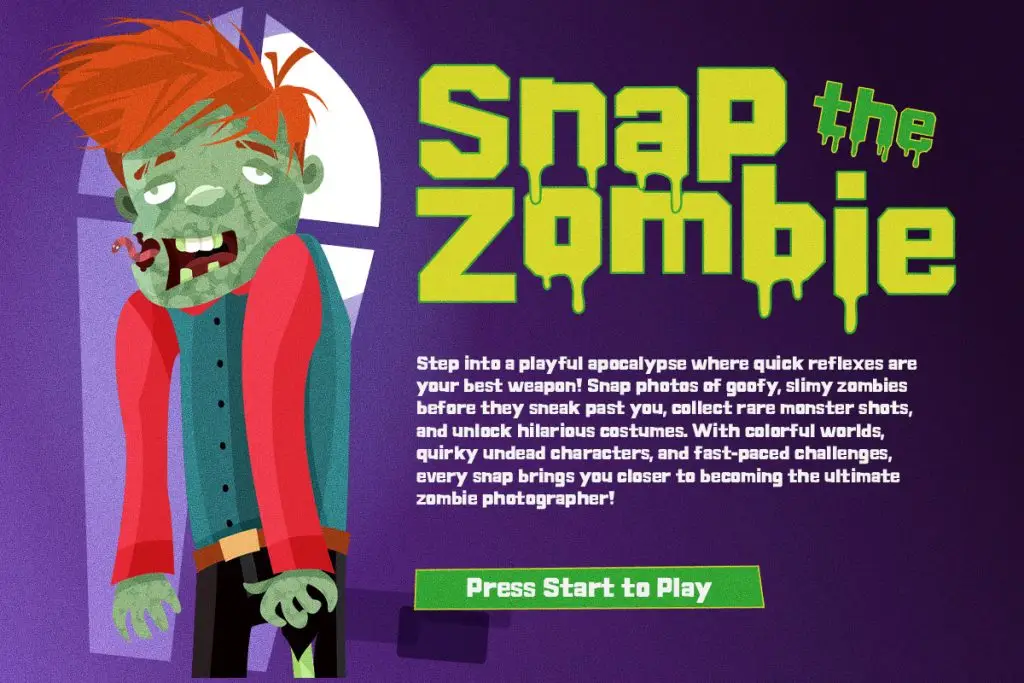
2. Ranventure
Ranventure combines adventure-inspired typography with energetic details that feel dynamic and immersive.
The font works particularly well for exploration games, fantasy adventures, RPG projects, and action-oriented branding.
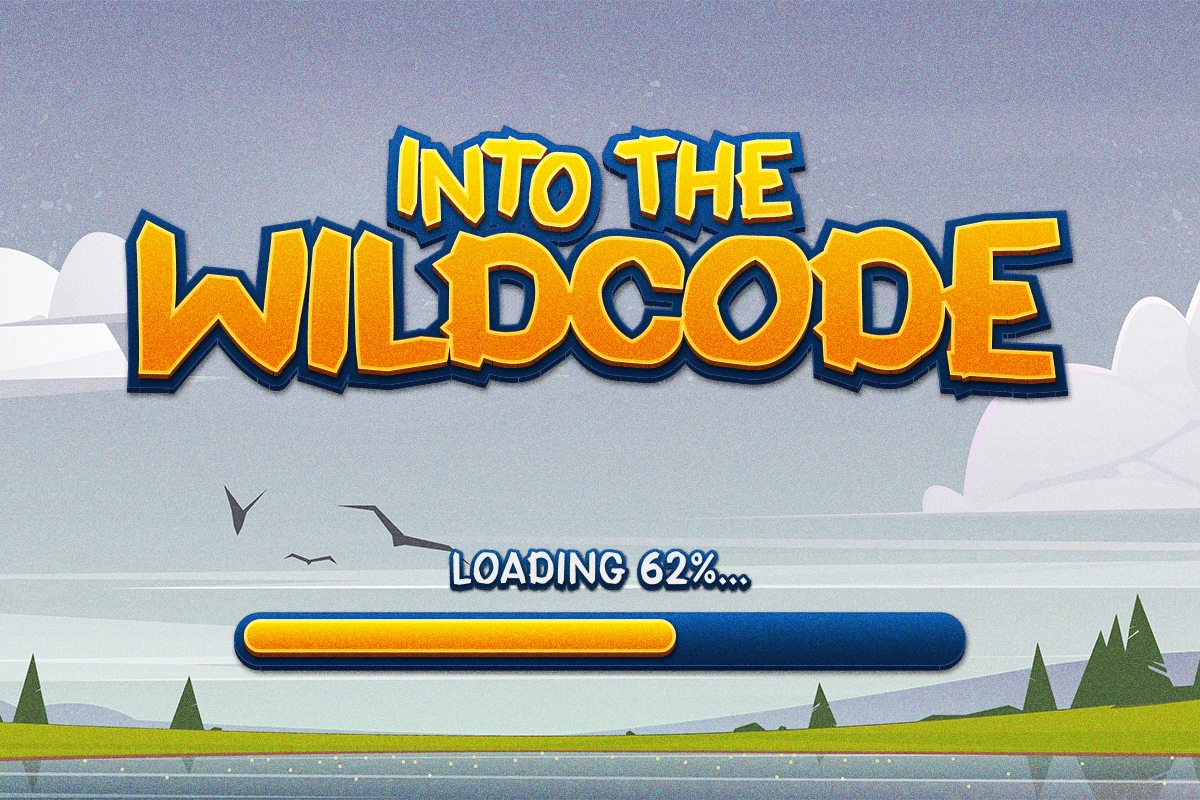
3. Woodzy
Woodzy delivers a handcrafted adventure aesthetic that feels playful and approachable.
Its organic character makes it suitable for casual action games, survival adventures, camping-themed projects, and outdoor-inspired gaming brands.
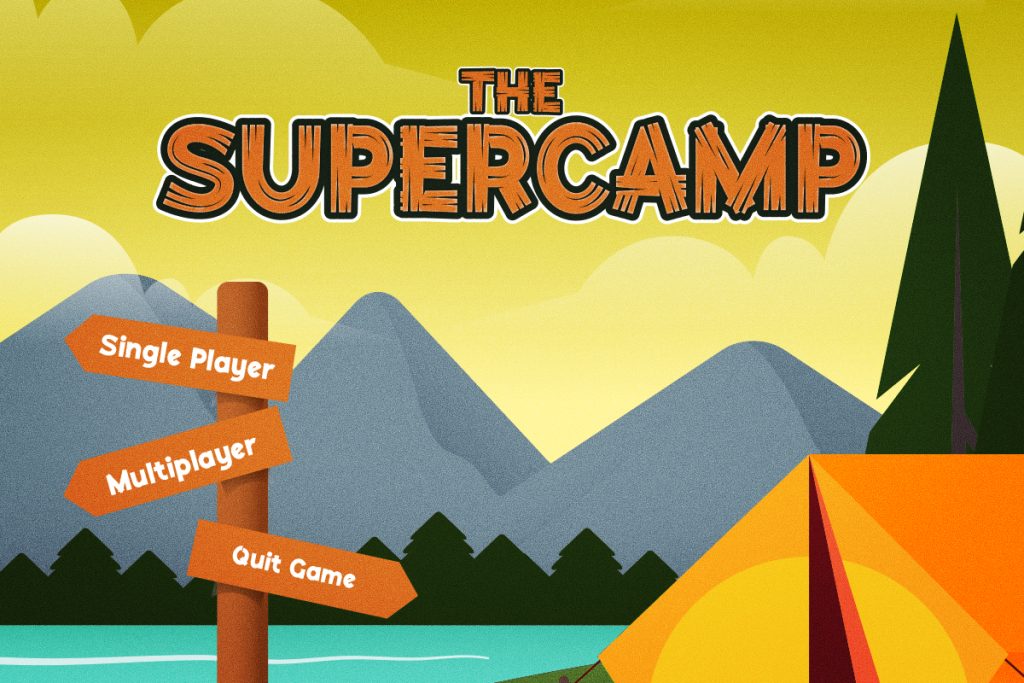
4. Joylet
Joylet offers energetic typography with a fun and expressive personality.
The font creates a youthful appearance that works exceptionally well for mobile games, family-friendly adventures, and colorful action projects.
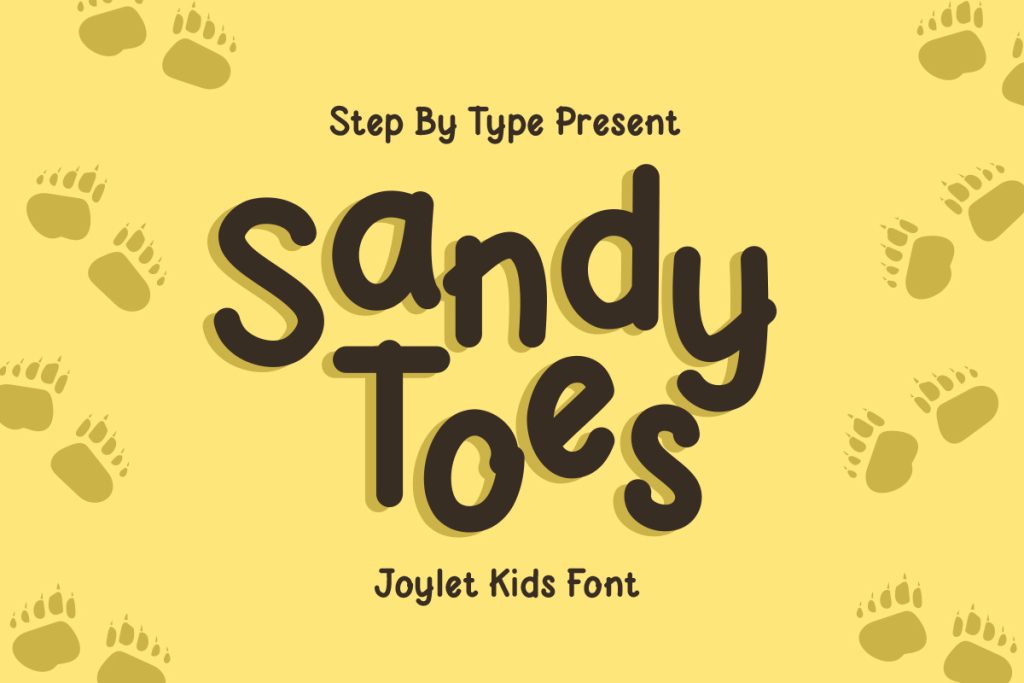
Ghoulie Script
Ghoulie Script combines action-oriented energy with spooky handwritten styling.
Its distinctive personality makes it ideal for horror games, haunted adventures, Halloween campaigns, and supernatural storytelling.
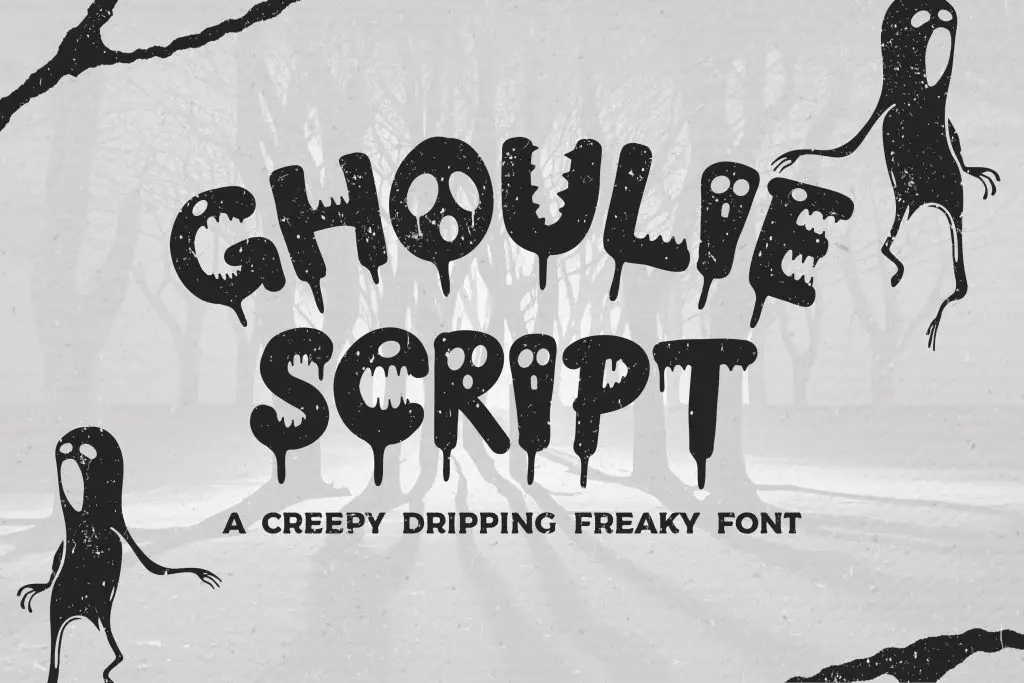
Best Use Cases for Action Game Fonts
Choosing the right font becomes easier when you understand where action game fonts perform best.
Game Logos
Action game fonts help establish the visual identity of a game from the first impression.
Strong typography can communicate:
- Genre
- Atmosphere
- Energy level
- Target audience
Many successful game titles rely heavily on typography as part of their branding.
YouTube Gaming Channels
Gaming creators compete in crowded markets.
Action-inspired typography helps:
- Increase thumbnail visibility
- Create stronger branding
- Improve audience recognition
Fonts like Ranventure and Joylet work particularly well for gaming content creators.
Esports Branding
Competitive gaming requires visual systems that feel energetic and memorable.
Action game fonts can enhance:
- Team logos
- Merchandise
- Social media graphics
- Event promotions
Merchandise Design
Gaming-inspired apparel often relies on typography-driven designs.
Action fonts work beautifully on:
- T-shirts
- Hoodies
- Posters
- Stickers
- Collectibles
Event and Tournament Promotions
Bold typography creates stronger visual impact for gaming events and competitions.
Action game fonts naturally attract attention and support promotional messaging.
Font Pairing Suggestions
Using an action display font for everything can overwhelm a design. Pairing it with complementary fonts creates better balance and readability.
Zombox Pairing
Headline:
- Zombox
Body Text:
This combination maintains excitement while ensuring readability.
Ranventure Pairing
Headline:
- Ranventure
Body Text:
Perfect for adventure-focused branding systems.
Woodzy Pairing
Headline:
- Woodzy
Body Text:
Creates a warm and approachable visual identity.
Joylet Pairing
Headline:
- Joylet
Body Text:
Ideal for playful and family-oriented projects.
Ghoulie Script Pairing
Headline:
- Ghoulie Script
Body Text:
This contrast helps maintain readability while preserving dramatic visual appeal.
How Action Game Fonts Improve Visual Identity
Typography is one of the fastest ways to establish brand personality.
Action game fonts help communicate:
Strong Emotion
People respond emotionally to typography. Dynamic fonts generate excitement before viewers engage with content.
Better Memorability
Distinctive typography improves brand recall and recognition.
Stronger Storytelling
Fonts contribute to narrative-building by reinforcing the atmosphere and tone of a project.